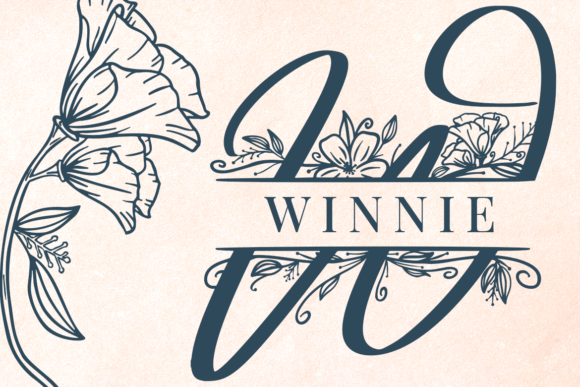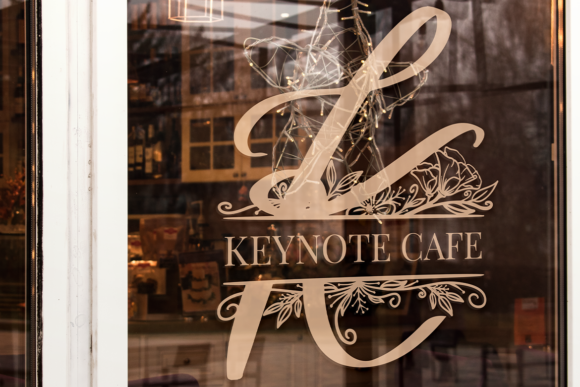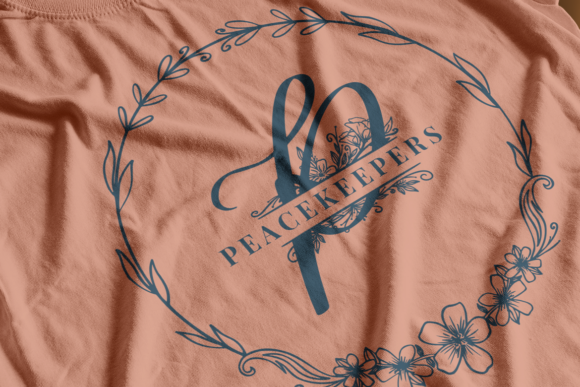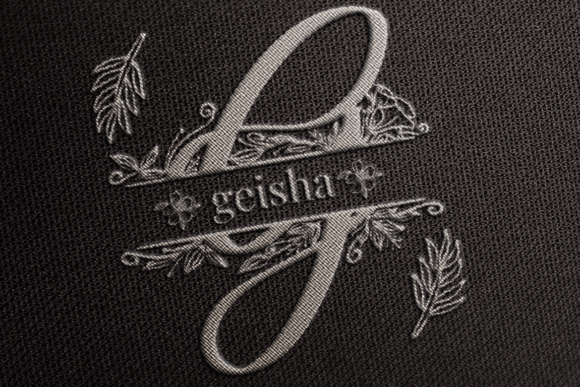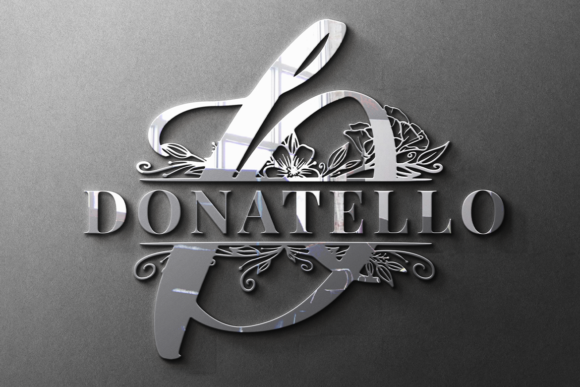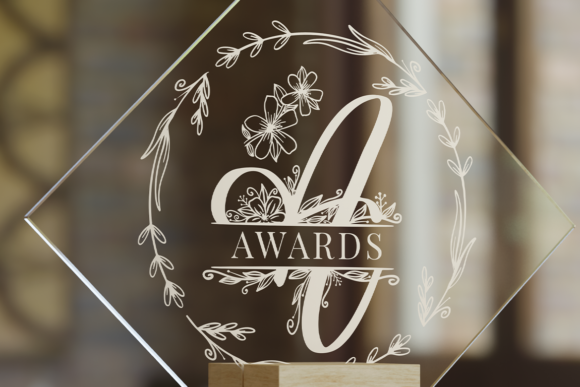
Unleash Your Creativity with the Timeless Angella Monogram Font
Do you remember that moment when you stumbled upon a vintage store, and you were immediately drawn to the intricate details and classic charm of the old-fashioned signs and invitations? It’s a moment that sparks creativity, doesn’t it? For designers, finding that perfect font that captures the essence of a bygone era can be a game-changer.
Enter the Angella Monogram Font, a stunning decorative font that exudes authenticity and sophistication. This beautiful font is perfect for creating breathtaking wedding invitations, stunning stationery art, captivating social media posts, and adorable greeting cards. With its unique style and elegance, the Angella Monogram Font is a valuable addition to any designer’s toolkit.
Angela Monogram Font Key Features
- Unique Characteristics: This font features elegant, cursive-style monograms with intricate details and ornate flourishes, making it perfect for creating beautiful and sophisticated designs.
- Style Variations: Angela Monogram Font includes multiple style variations, including uppercase and lowercase letters, numerals, and punctuation marks, allowing designers to create a wide range of custom designs.
Angella Monogram Font Review
Overall, I think the Angella Monogram Font is a beautiful addition to any design project. It’s a sophisticated and elegant font that can add a touch of luxury to your designs.
- Unique monogram design: The font’s monogram design is what sets it apart from other fonts. It’s perfect for creating custom logos, invitations, or other designs where a personal touch is needed.
- High-quality vector graphics: The font is available in vector format, making it easy to scale up or down without losing any quality.
- Professional feel: The font’s elegant design gives it a professional feel that’s perfect for business or corporate designs.
- Limited character set: The font only includes a limited character set, which may not be suitable for projects that require a wide range of characters.
- No bold or italic variations: The font only comes in regular weight, which may limit its use in certain design situations.
Overall, I think the Angella Monogram Font is a great choice for designers who want to add a touch of elegance and sophistication to their designs. While it has some limitations, its unique design and high-quality vector graphics make it a valuable addition to any design project.
For a professional look, use the font in combination with other elegant fonts and add some subtle texture to the background.
For a creative look, use the font in combination with bold lines and geometric shapes to create a unique design.
For a formal look, use the font in combination with other classic fonts and add some subtle texture to the background.
Use the Angella Monogram Font for:
Wedding invitations, baby shower invitations, and other special occasion designs.
Business cards, letterheads, and other professional stationery.
For a unique and elegant look, use the font in combination with other creative elements, such as illustrations and graphics.